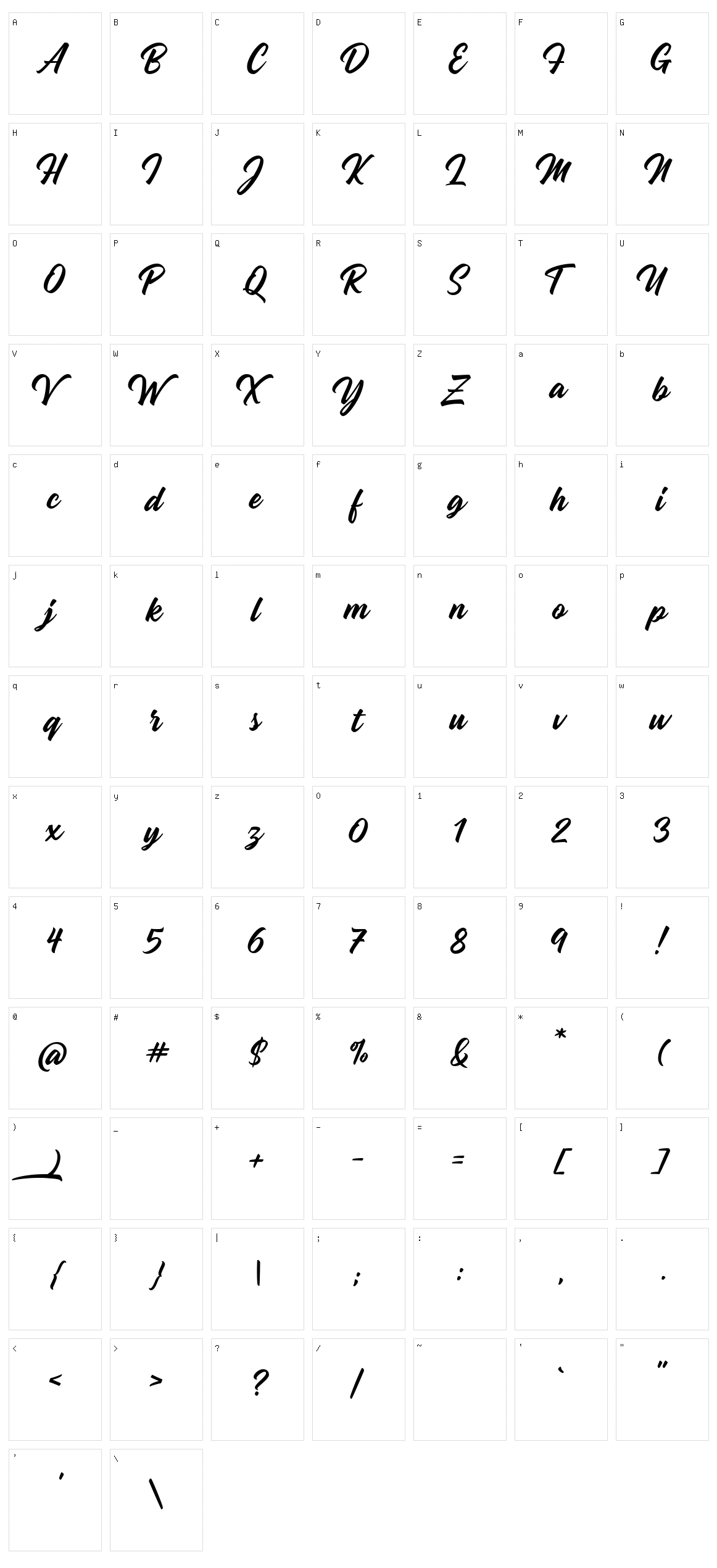
The free font Madame is carefully designed by StereoType, showcasing a thoughtful balance of creativity and usability and falls under the Script font style. When you download the ZIP file, it contains only 1817.59 KB of font files, making it lightweight and quick to download. Please review the license details below to understand permitted usage and distribution rights. If license information is not available, we recommend using this font for personal projects only or contacting the author directly for commercial usage permissions.